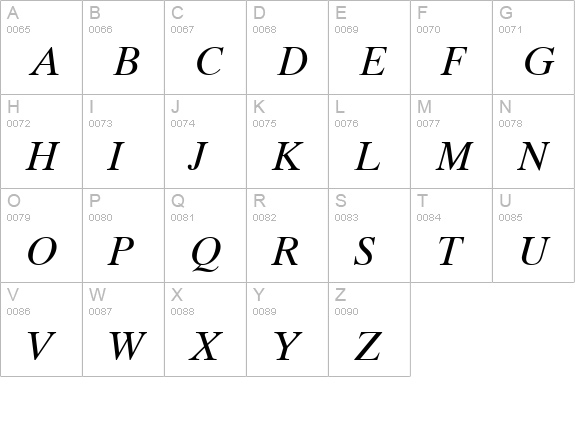
Greco Ten SSi Italic is a distinctive, italic variant in the Greco typeface family \xE2\x80\x94 well suited to design and typography projects.
Greco Ten SSi Italic is a beautifully designed font that exudes elegance and sophistication. Its slanted and stylish italicized characters add a touch of flair to any project, making it perfect for creating eye-catching designs. The sleek and modern aesthetic of Greco Ten SSi Italic makes it a versatile choice for a wide range of applications, from branding to editorial design. What sets Greco Ten SSi Italic apart is that it is freely available to download at FontsMarket.com. This means that you can easily access this high-quality font without any cost, making it an excellent choice for both personal and commercial projects. Whether you're working on a website, poster, or logo, Greco Ten SSi Italic will help elevate your design and give it a professional finish. Download this stunning font today and unleash your creativity with Greco Ten SSi Italic.